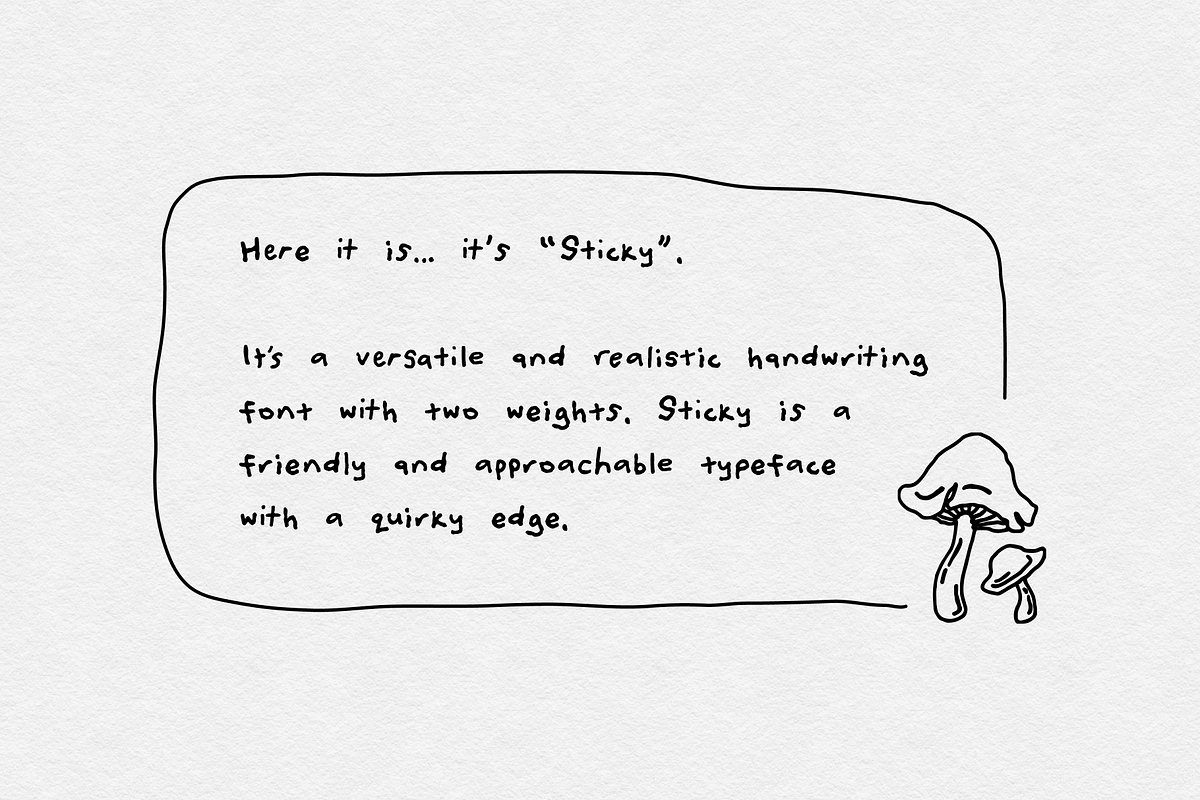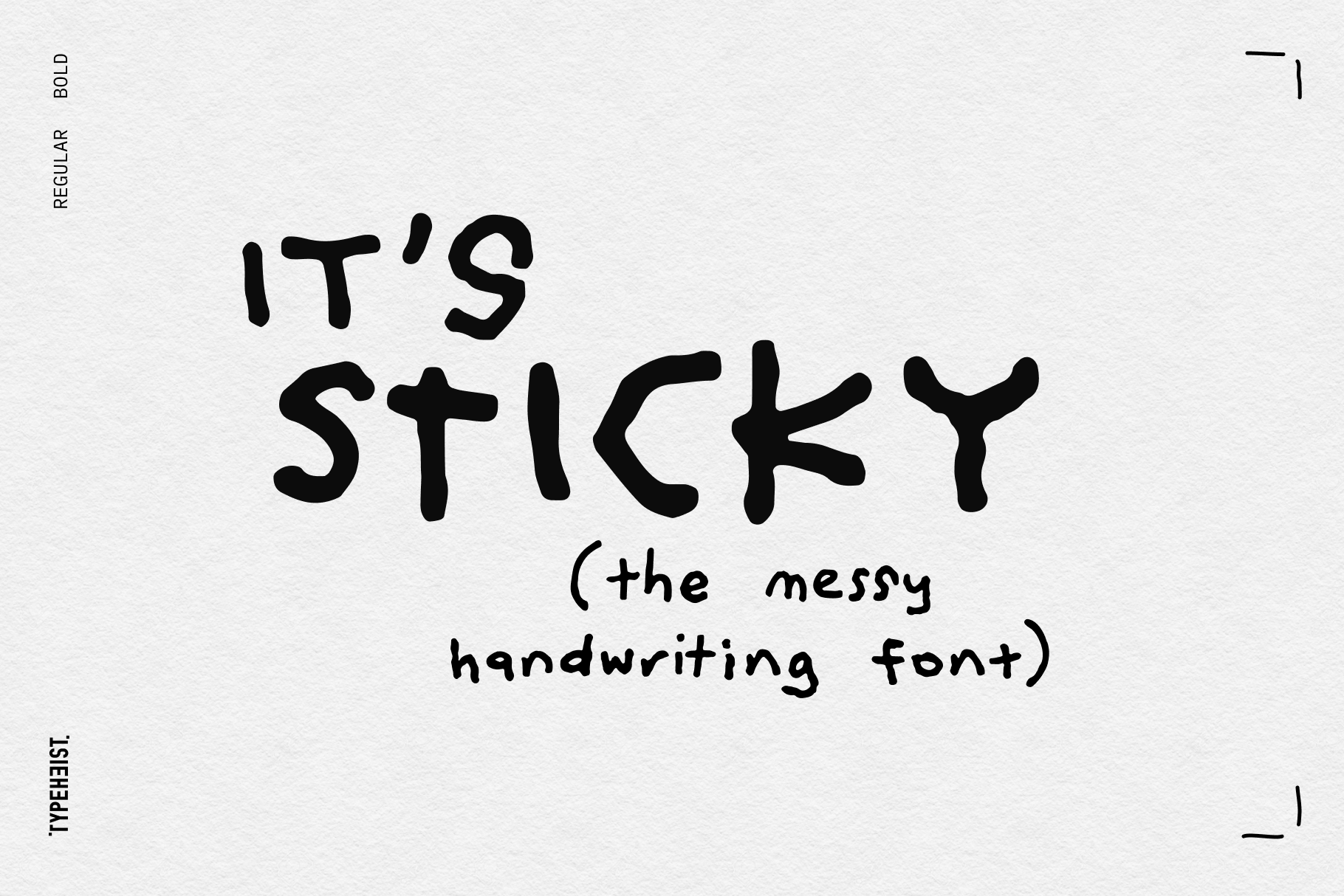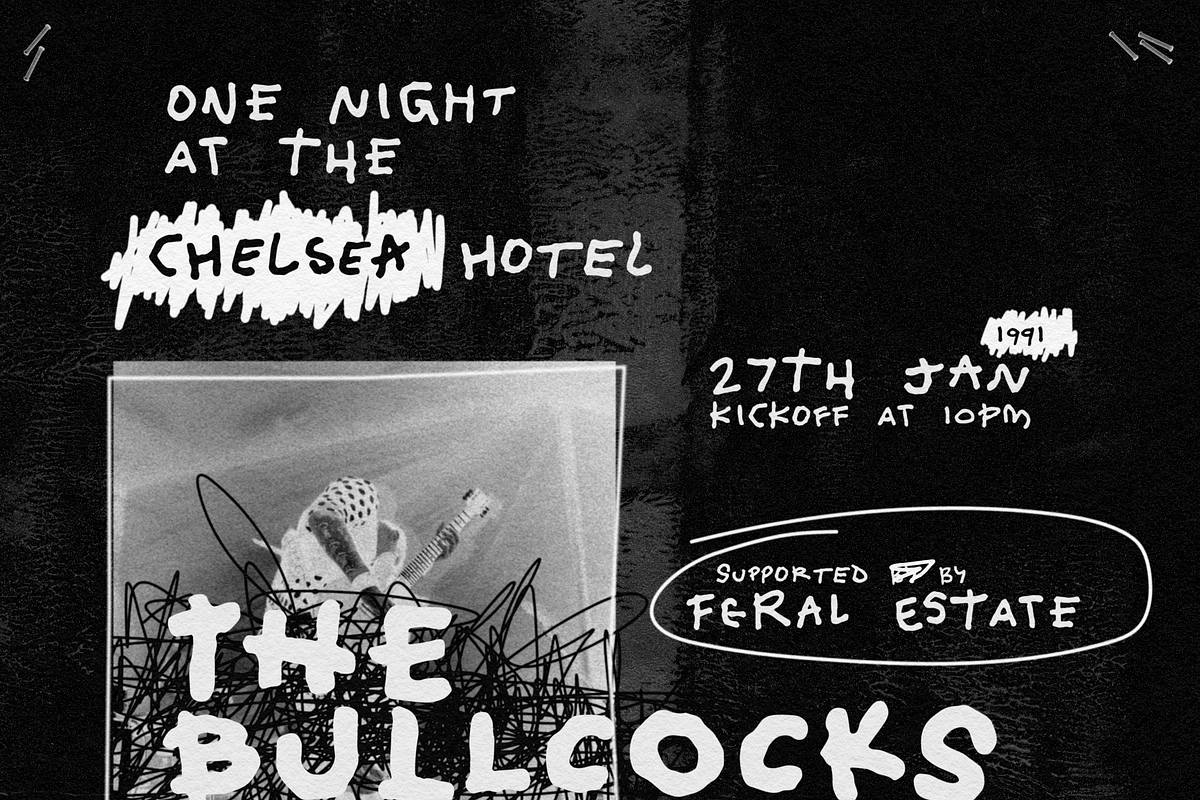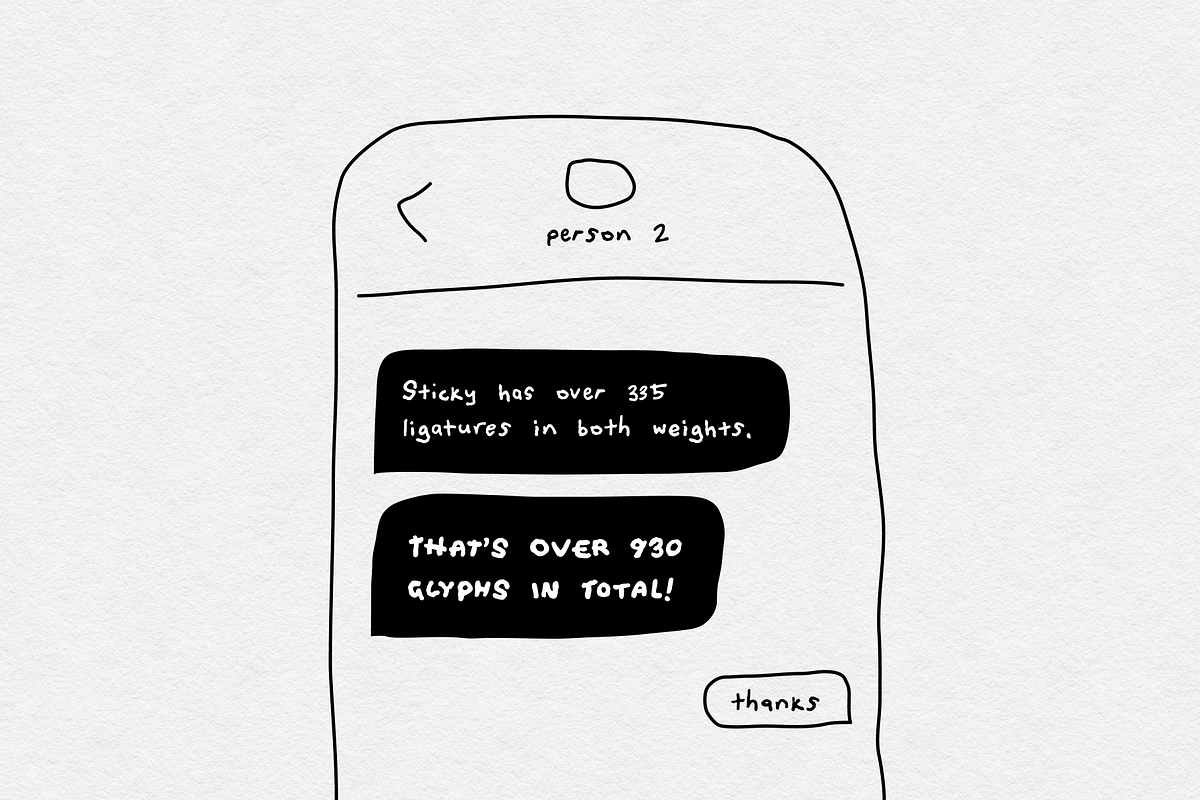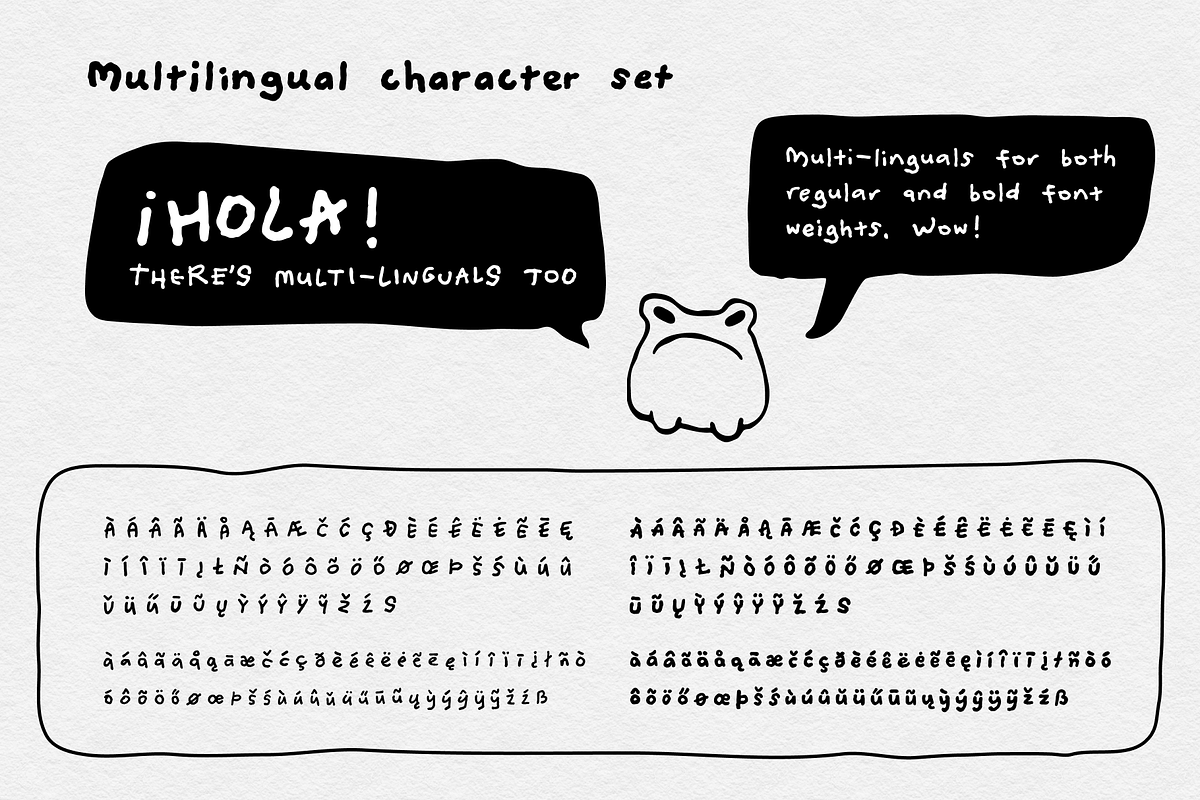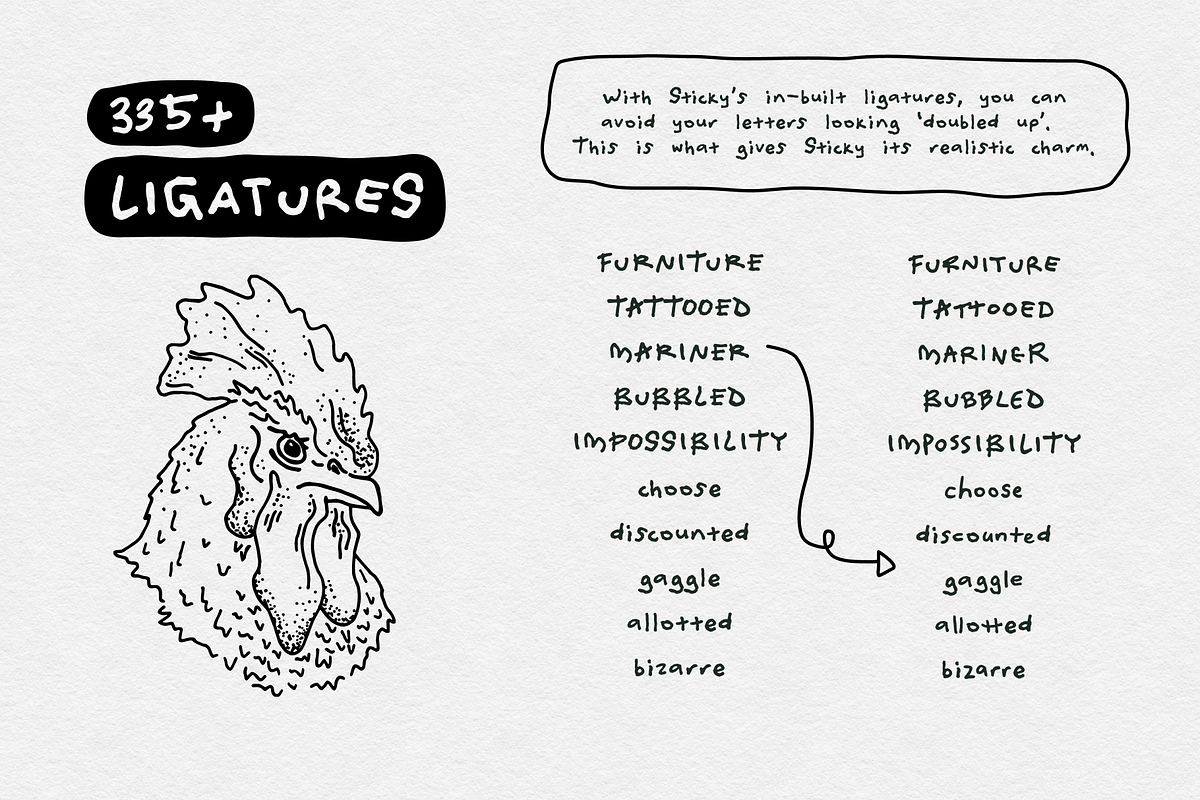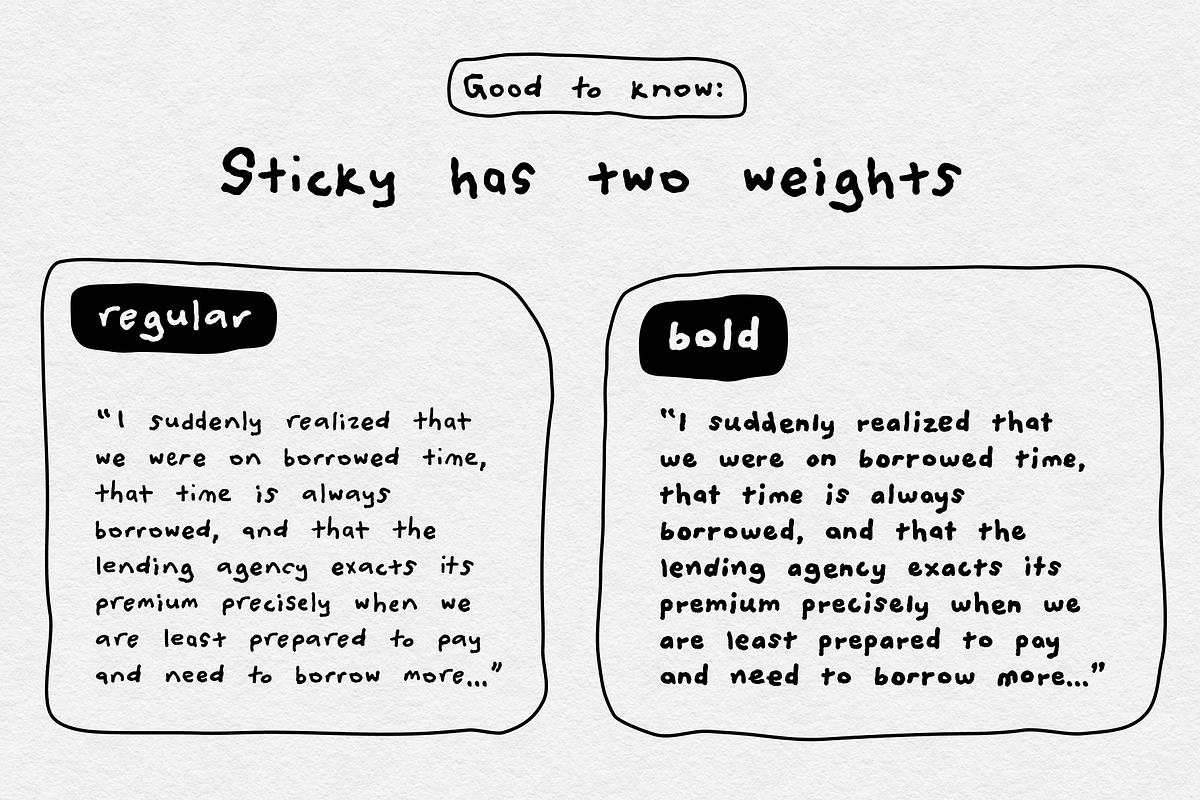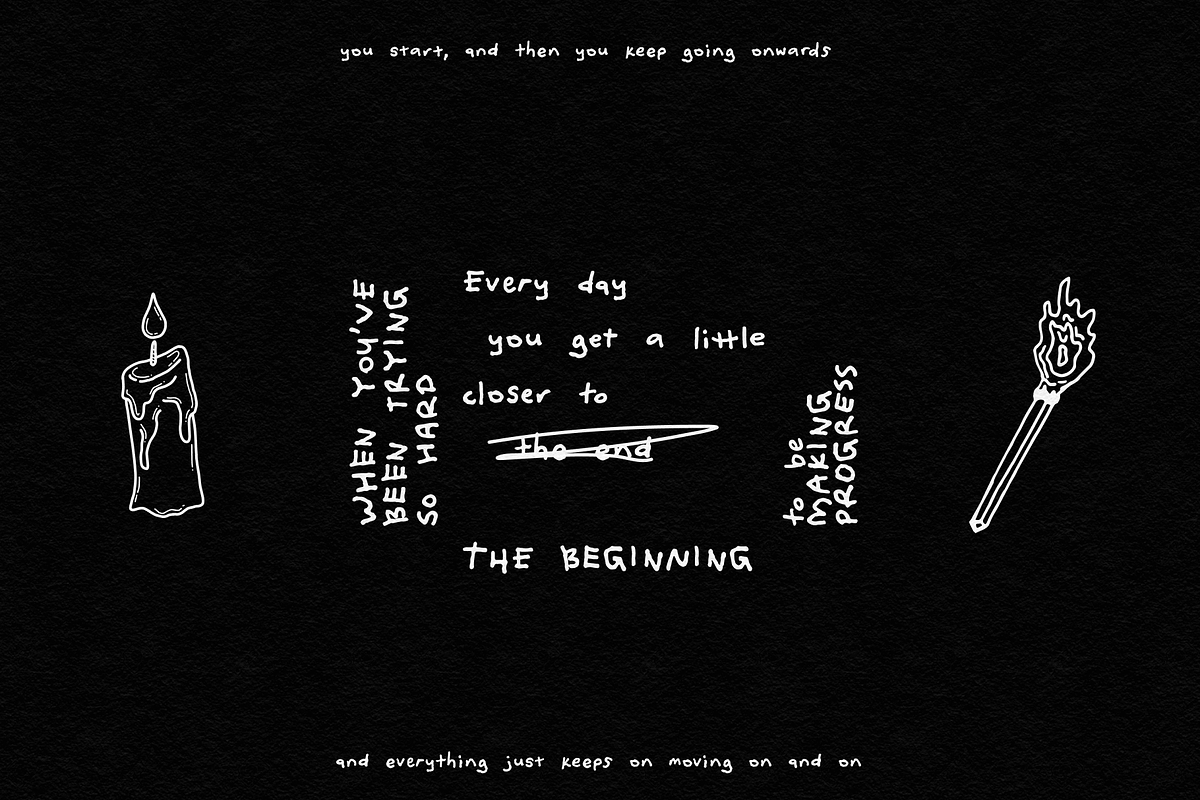
Sticky, the Messy Handwriting Font
Here it is: it’s Sticky. A versatile and realistic handwriting font with two weights, regular and bold. Sticky is a friendly and approachable typeface with a quirky edge. It’s packed with glyphs and ligatures, ensuring tonnes of variance and a dusting of charm.
Sticky is a handwriting font that comfortably balances the fine line between uniqueness and legibility. At large sizes it’s eye-catching and distinctive. For smaller copy, it’s fun and playful while still being easy to read.
It’s multi-lingual and includes over 460 characters in each weight, supporting languages such as French, Spanish, German, Hungarian and many more. Give it a go in the type tester below.